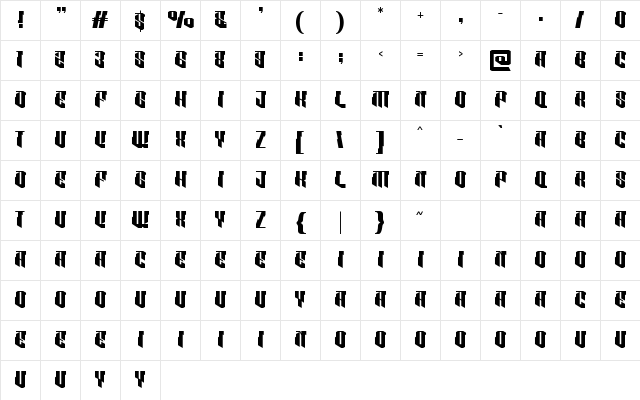
RUGDISH Regular
Designer: Febrie Setiawan
Design Context for RUGDISH
RUGDISH is a composed and adaptable typeface that performs quietly and consistently across a wide range of design contexts.